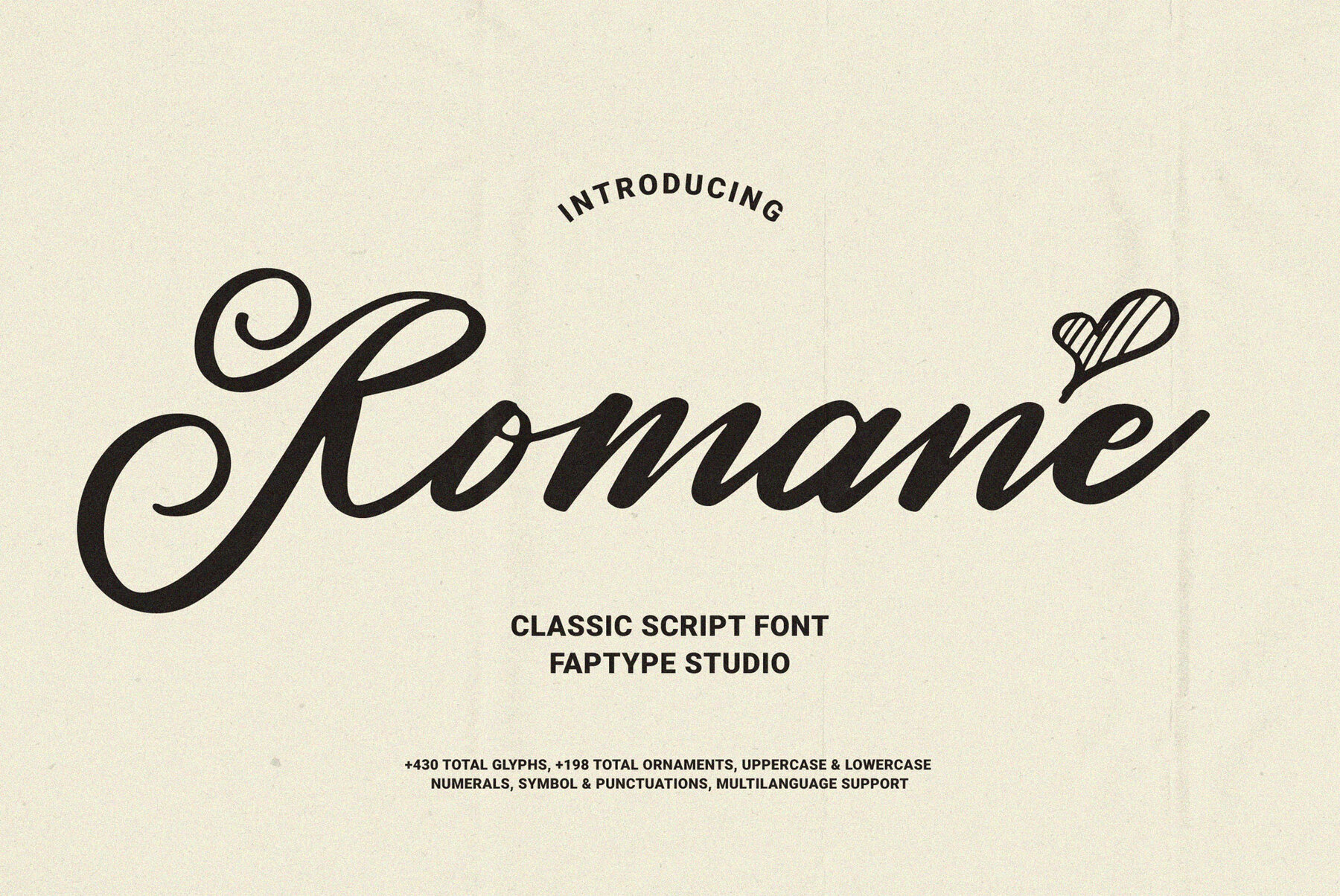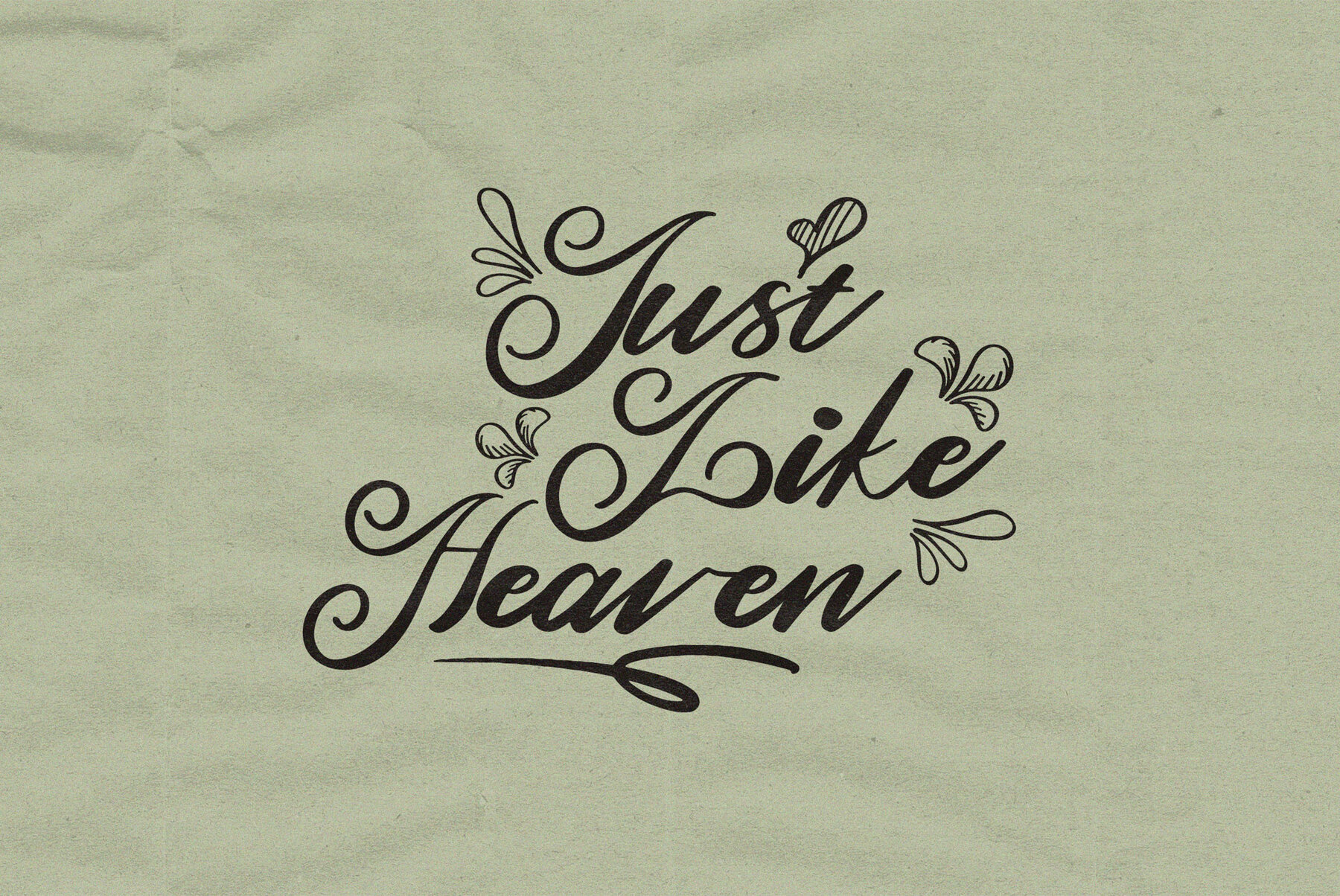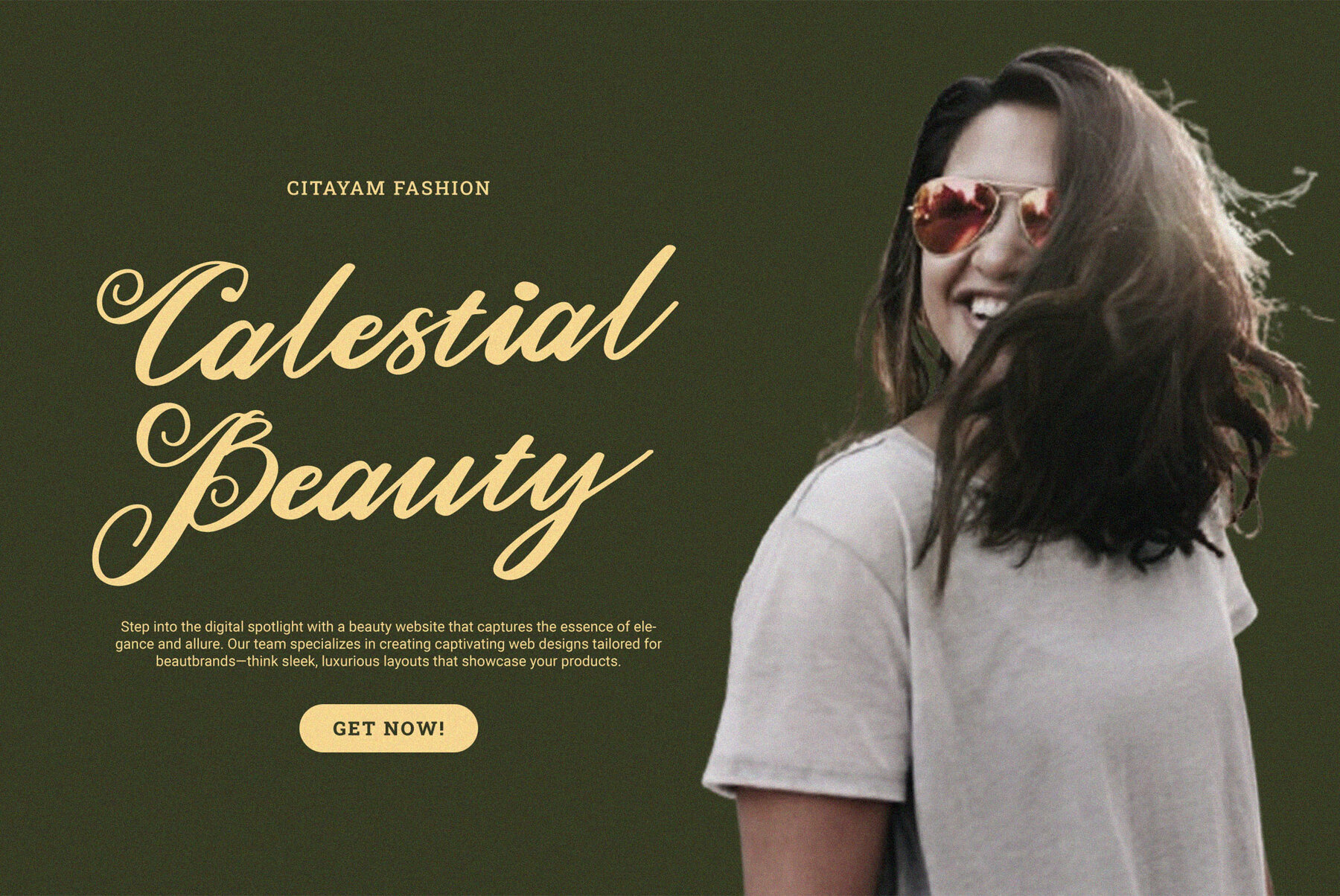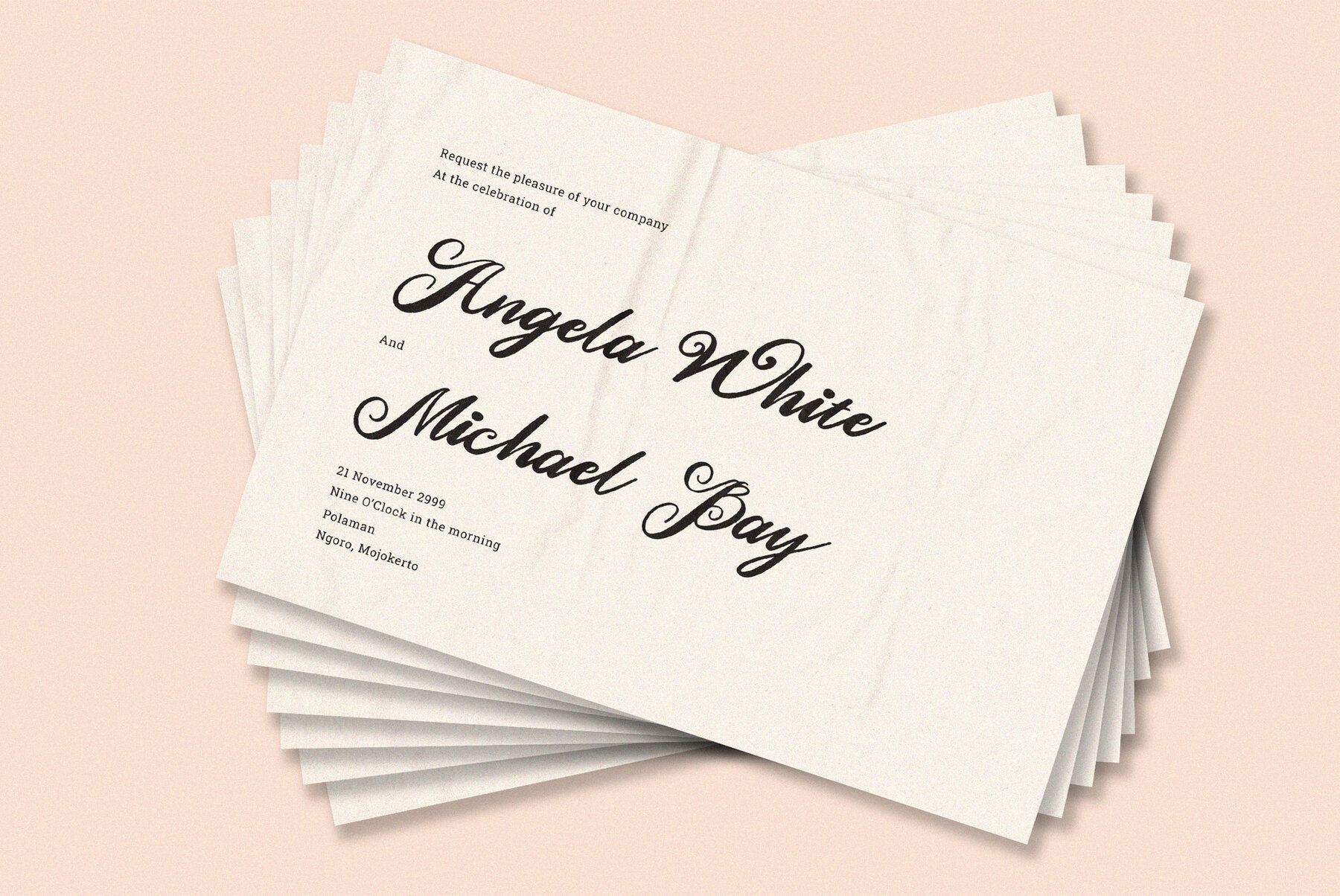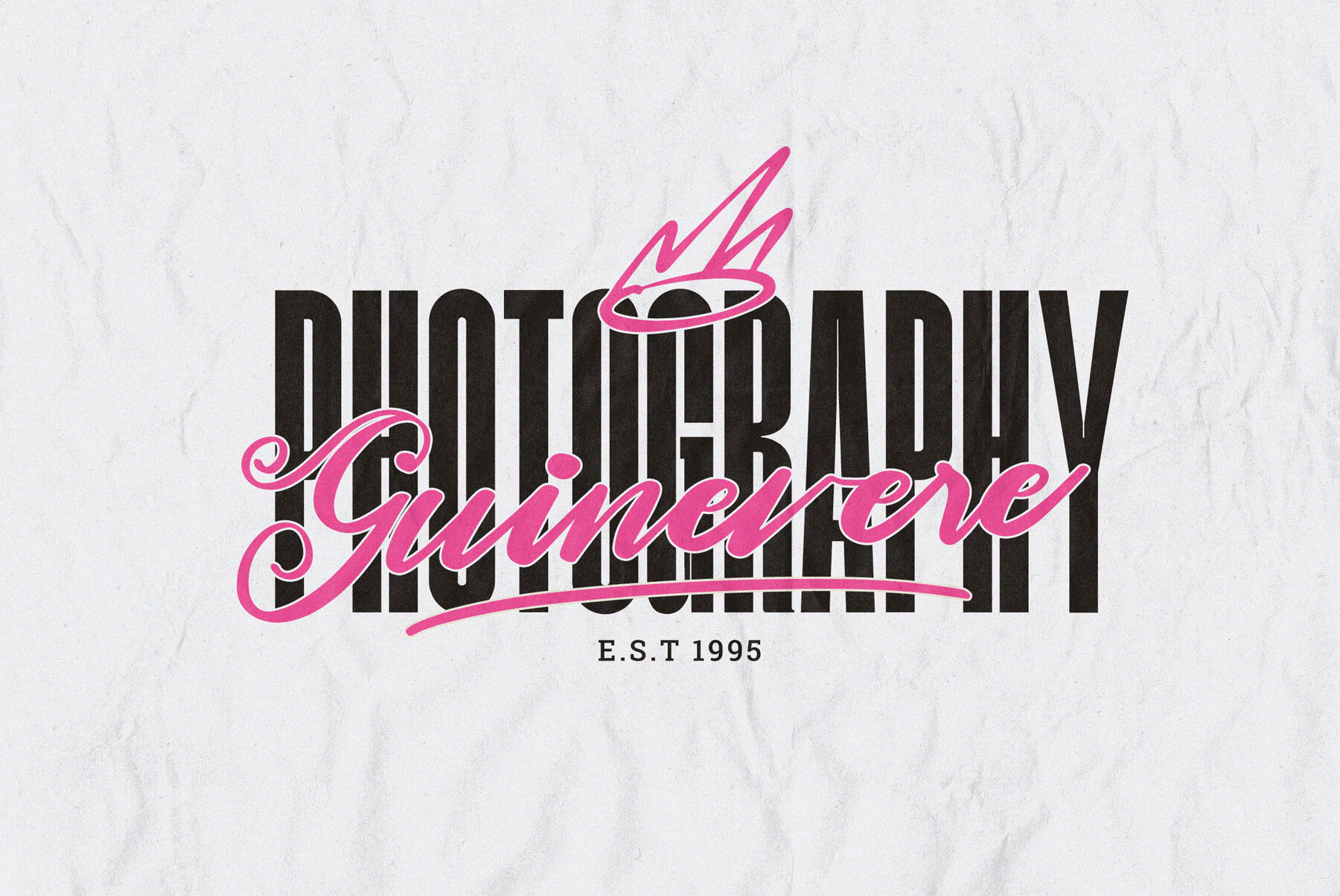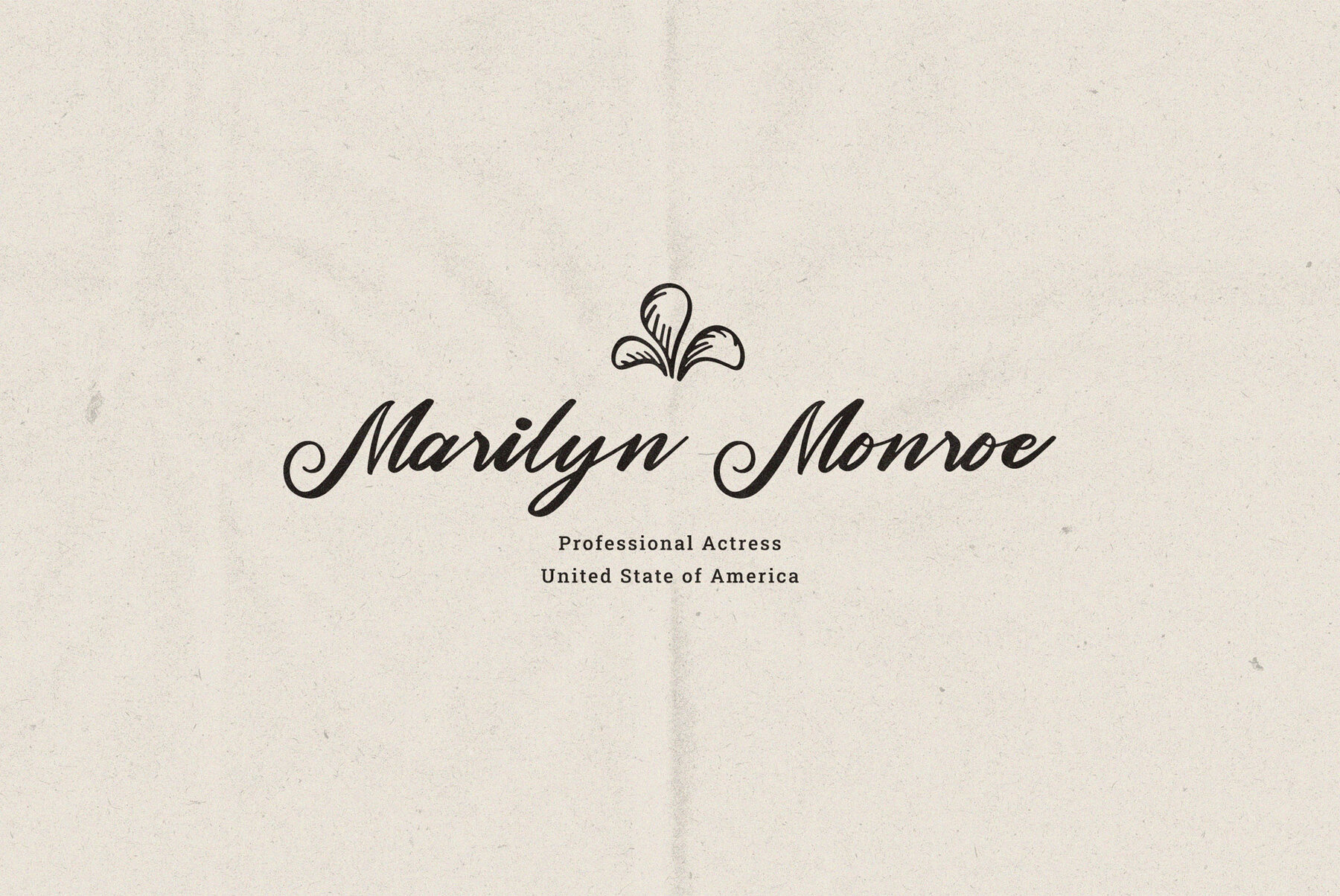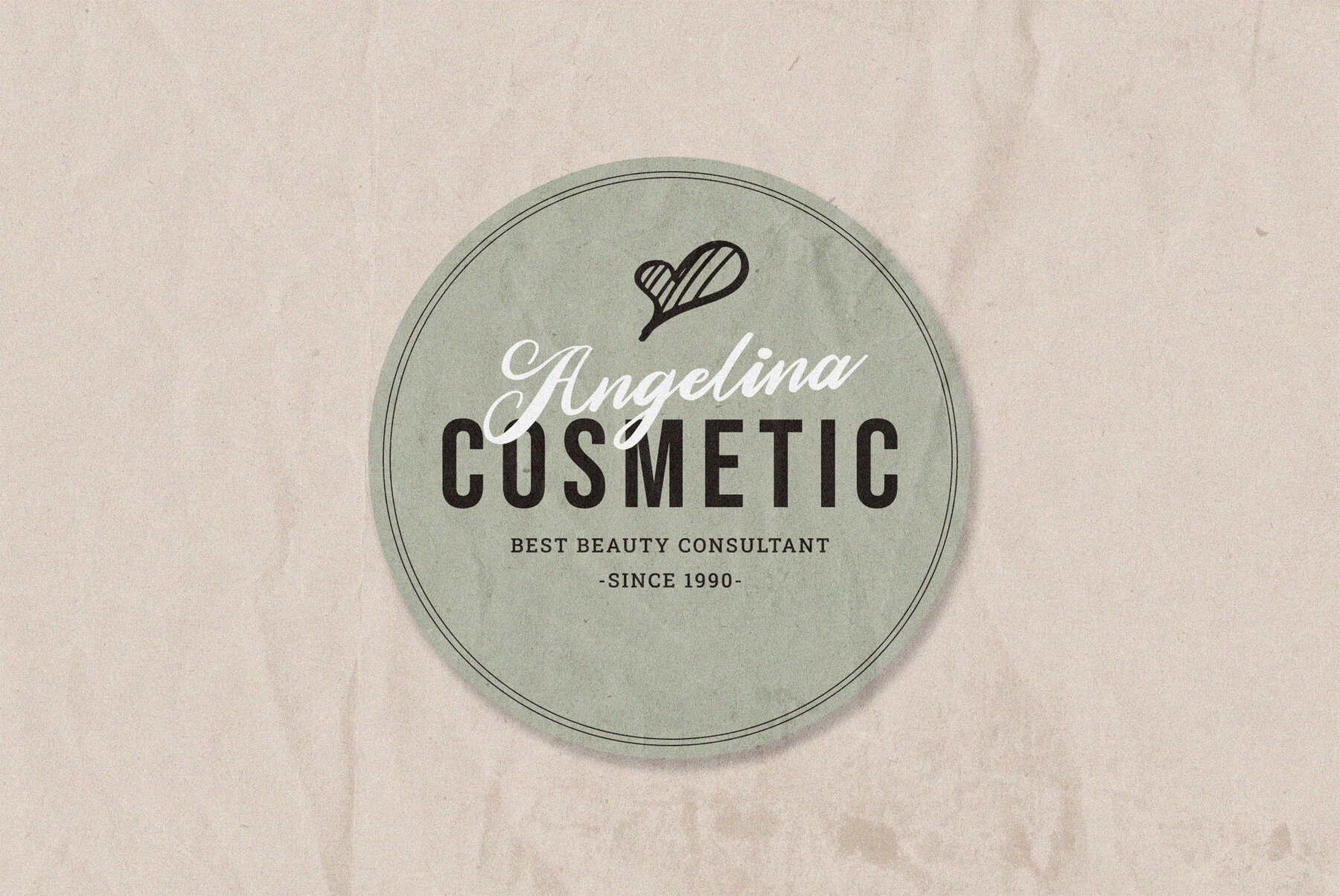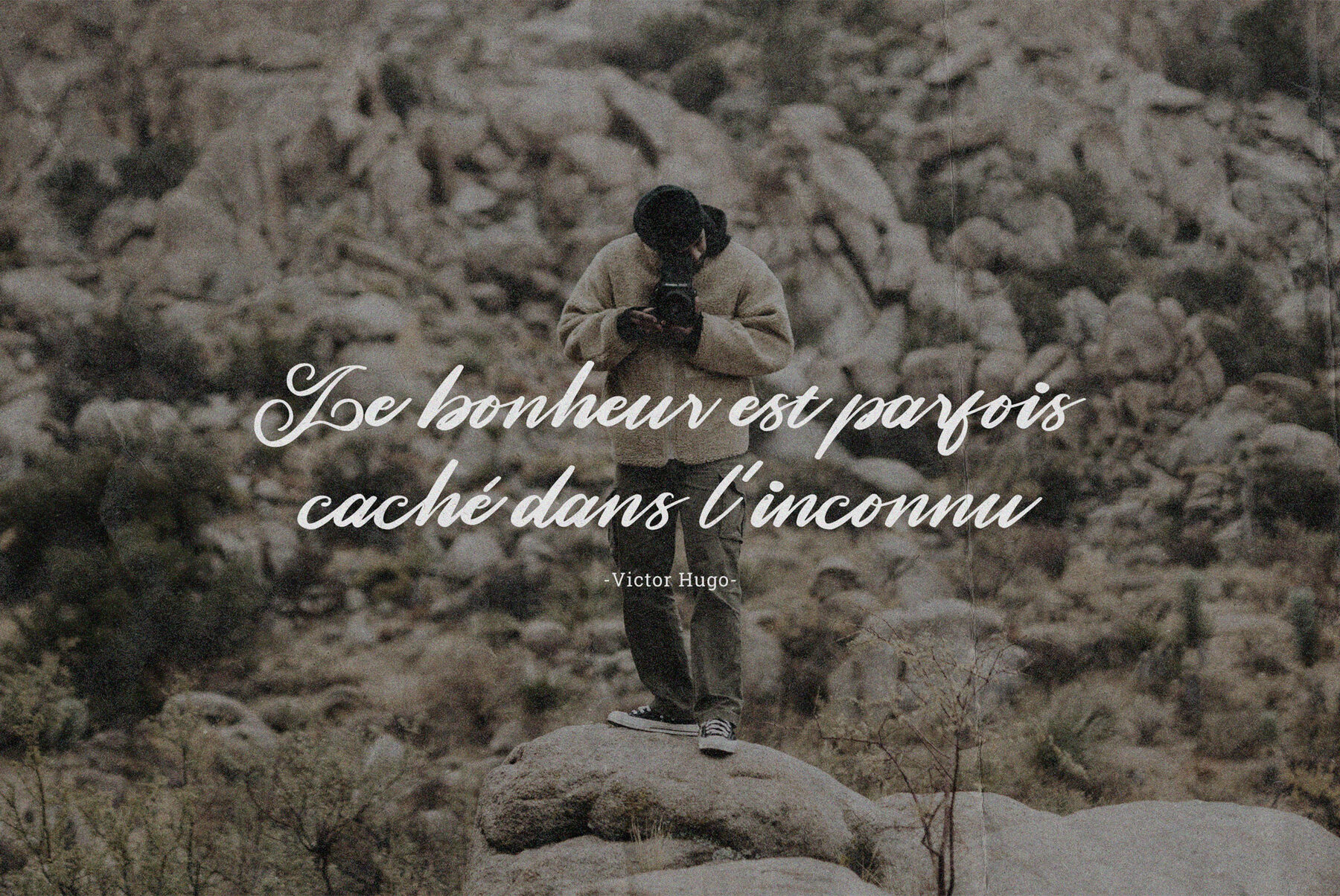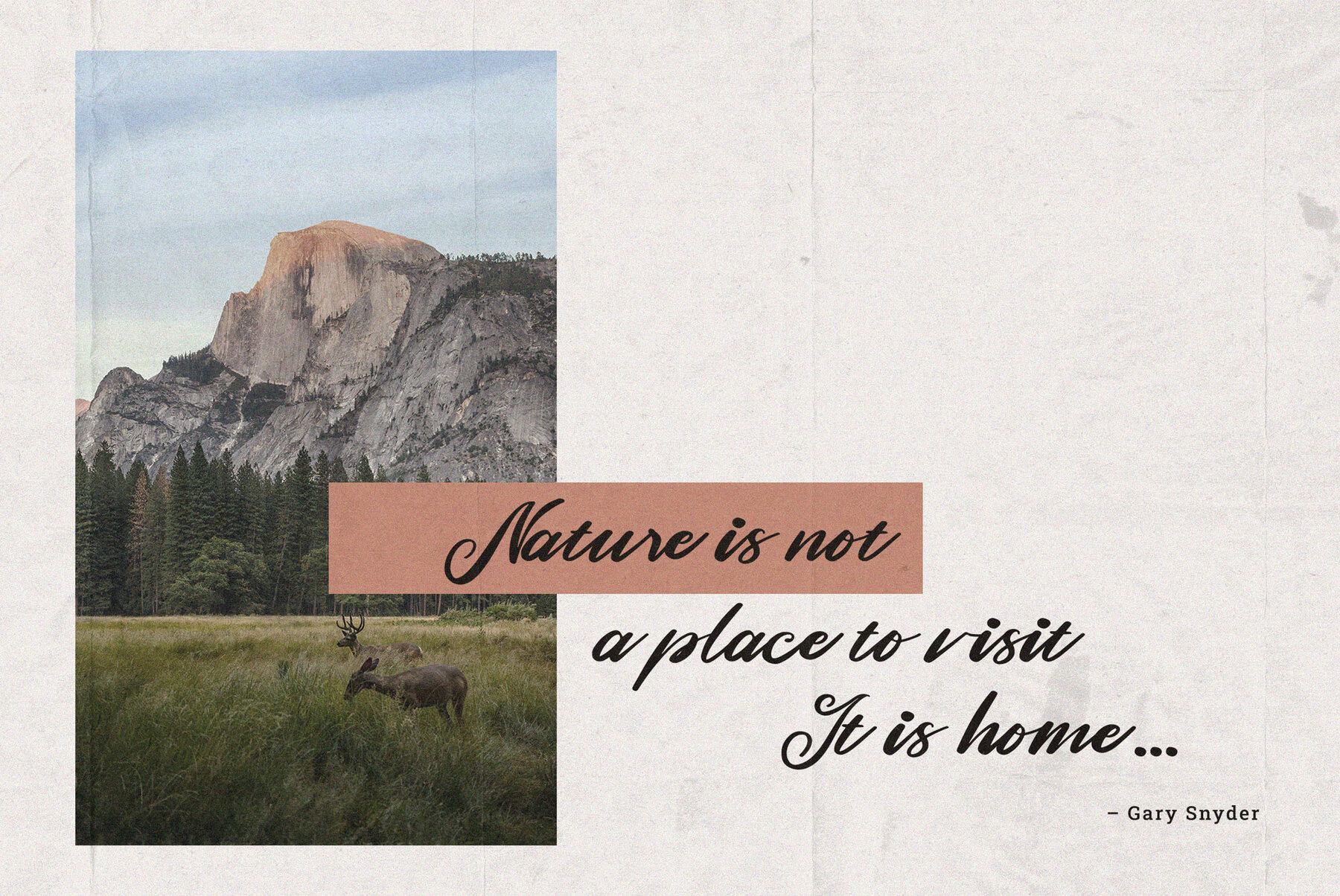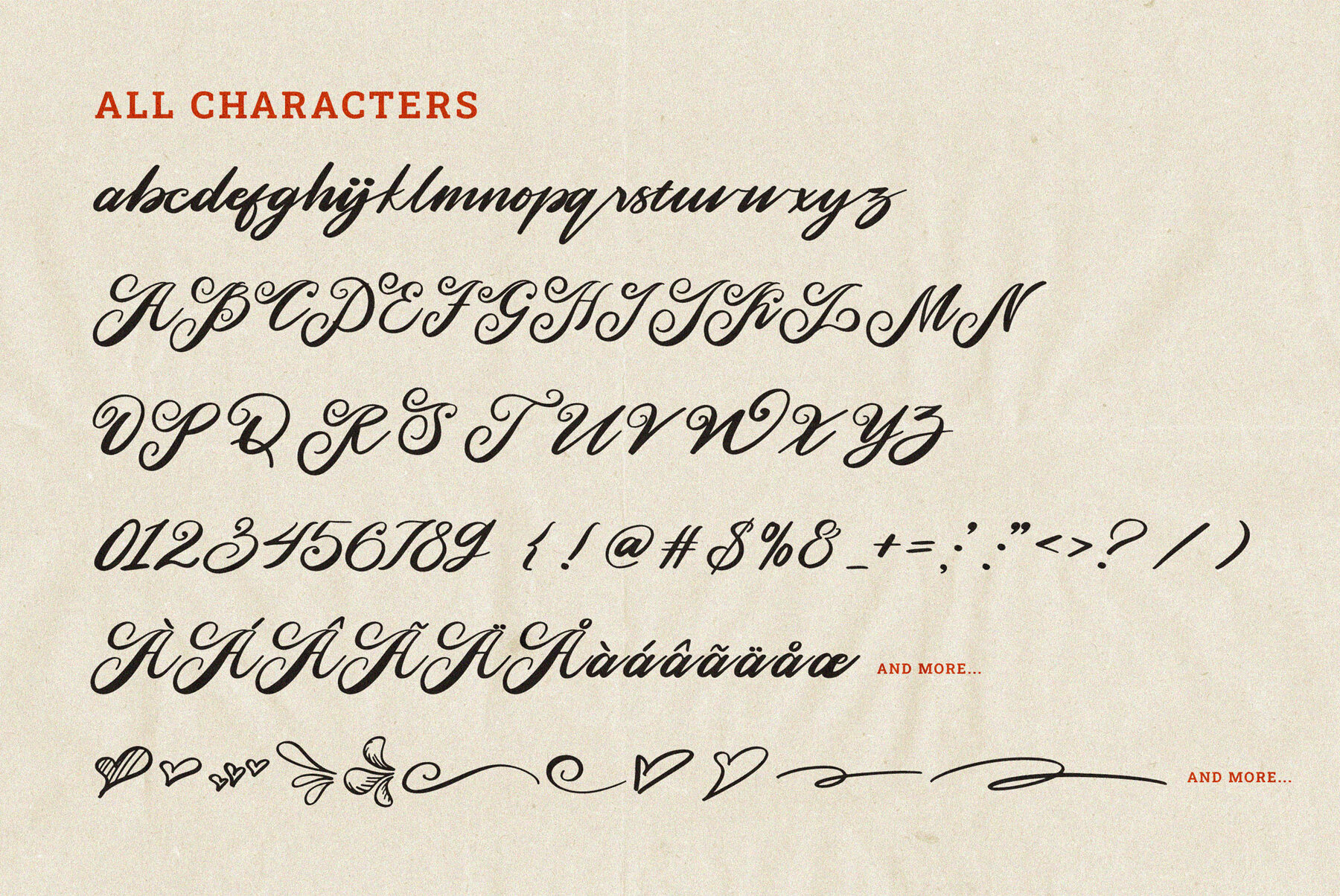
Romane Font
Romane Regular
Romane is a refined classic script font that effortlessly blends the elegance of traditional calligraphy with a contemporary touch. Perfect for any project needing an elegant and polished presentation, Romane adds timeless beauty to branding, invitations, packaging, and editorial designs. Its graceful curves and carefully crafted flourishes echo the charm of hand-lettered artwork, ensuring a sophisticated yet approachable aesthetic.
Ideal for both personal and commercial use, Romane offers luxury without compromising on readability. Its fluid strokes and balanced weights ensure clear legibility, while its distinctive character lends a distinguished look to any text. Be it a wedding invitation, a premium logo, or a captivating editorial spread, Romane consistently delivers a level of sophistication that resonates deeply.
Equipped with a full set of upper and lowercase characters, numbers, punctuation, and multilingual support, Romane includes 429 glyphs and 198 brush swashes. This rich variety ensures versatility in design applications. Let Romane infuse your projects with elegance and precision, leaving a lasting impression.